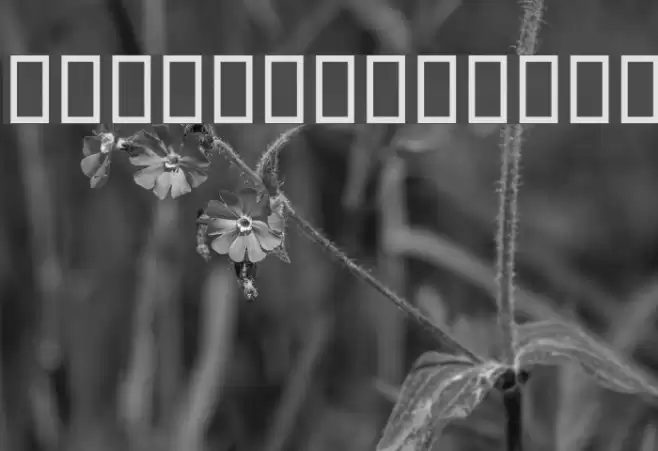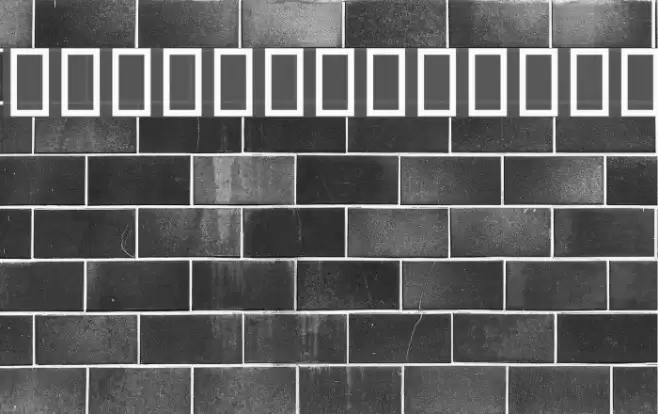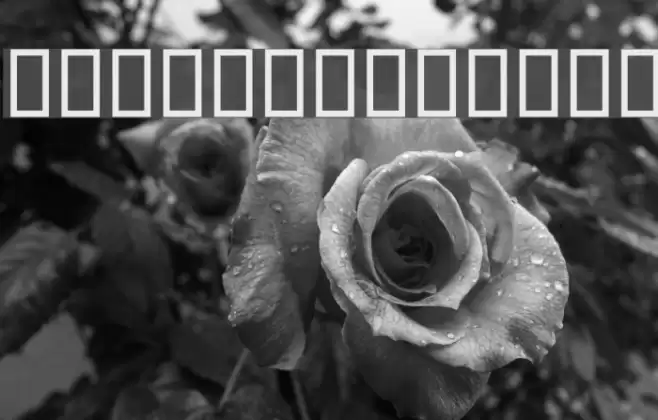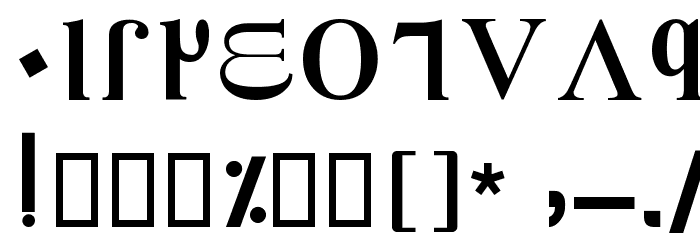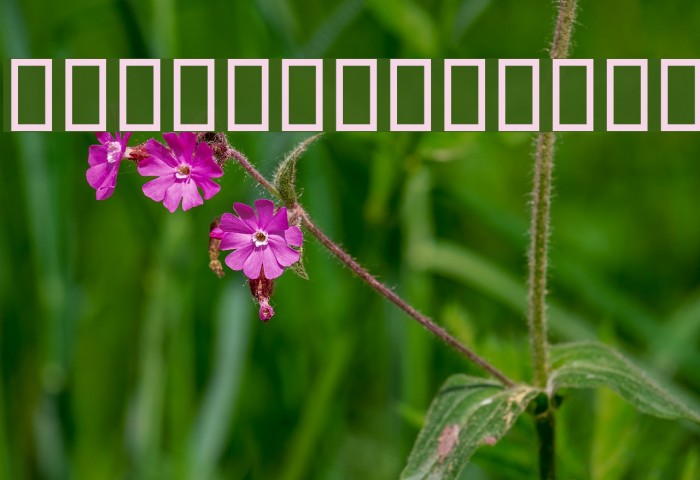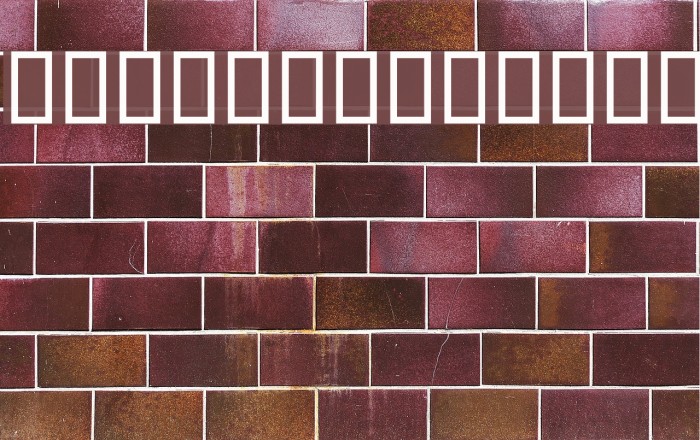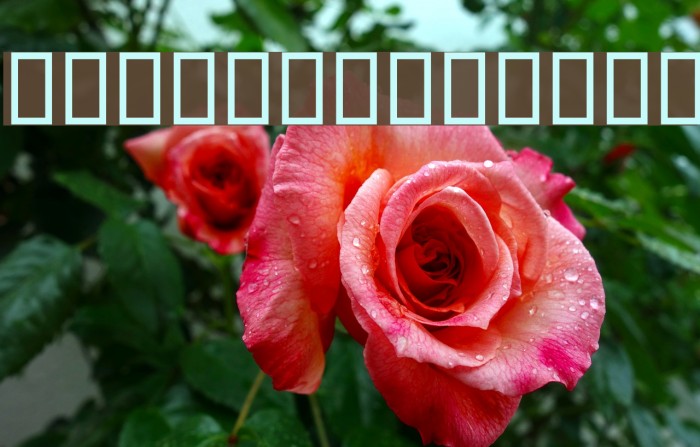
Law Font
Law Description
This font features a bold and striking design with a high contrast between thick and thin strokes, giving it a dramatic and elegant appearance. The serifs are pronounced, adding a classic touch to the overall modern style. The characters are well-defined with a slightly condensed width, which enhances readability while maintaining a sophisticated look. The spacing between characters is normal, ensuring clarity and legibility. This typeface is versatile, suitable for both digital and print media, and can be used effectively in various design projects.
A bold, high-contrast serif font with a modern and elegant style from Uncategorized fonts.
- Proposed Projects: Ideal for luxury branding, editorial design, book covers, and high-end product packaging.
- Use Case: Headlines, Logos, Editorial Design